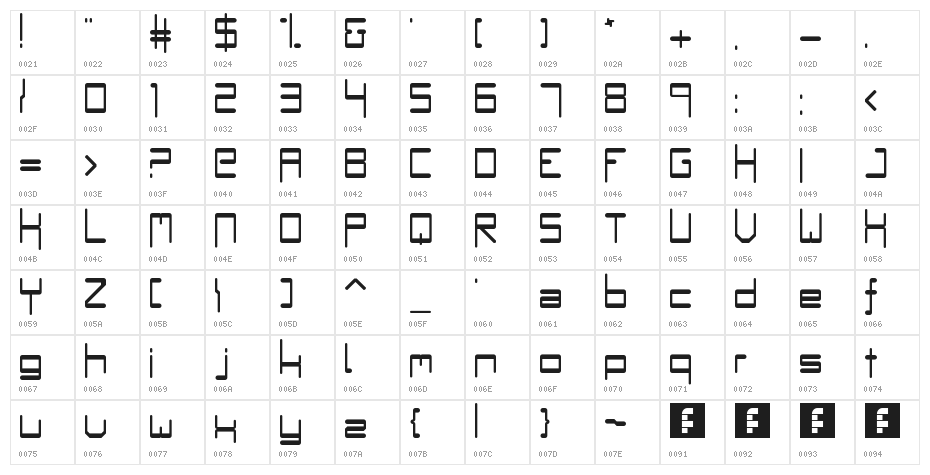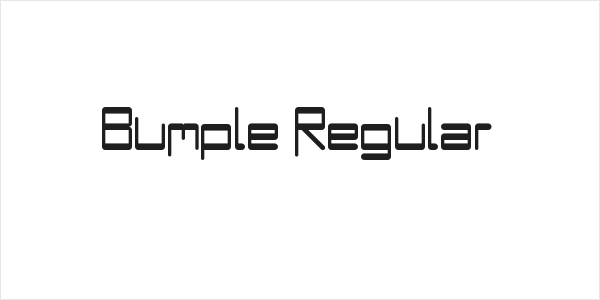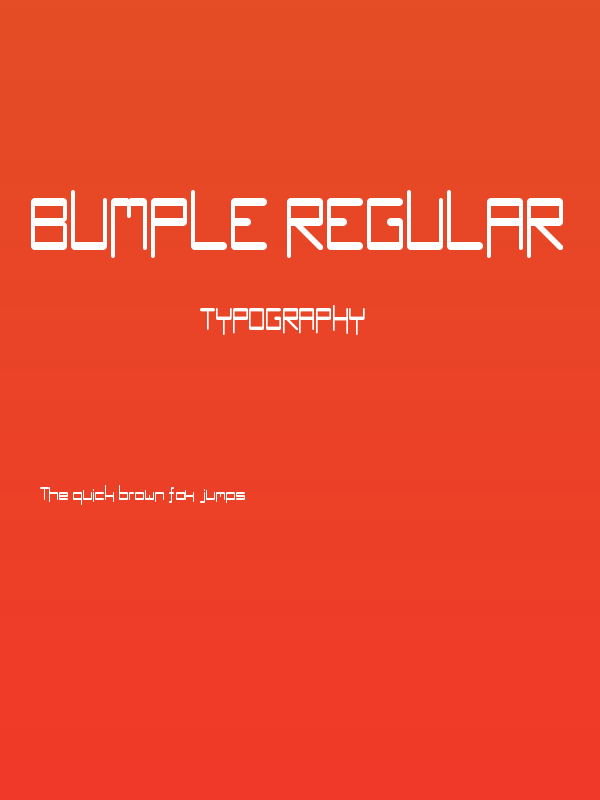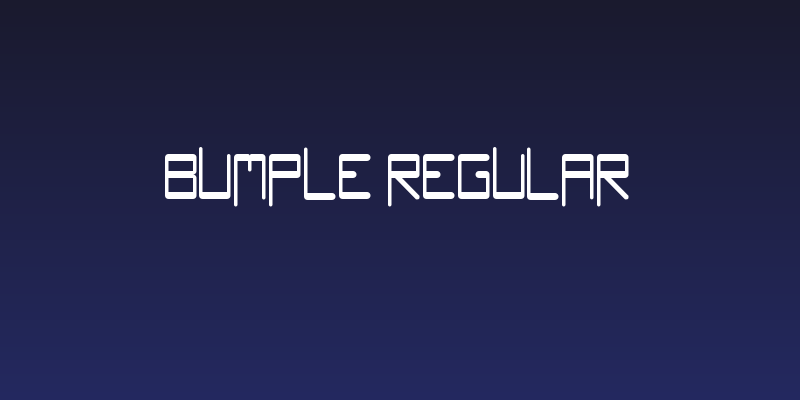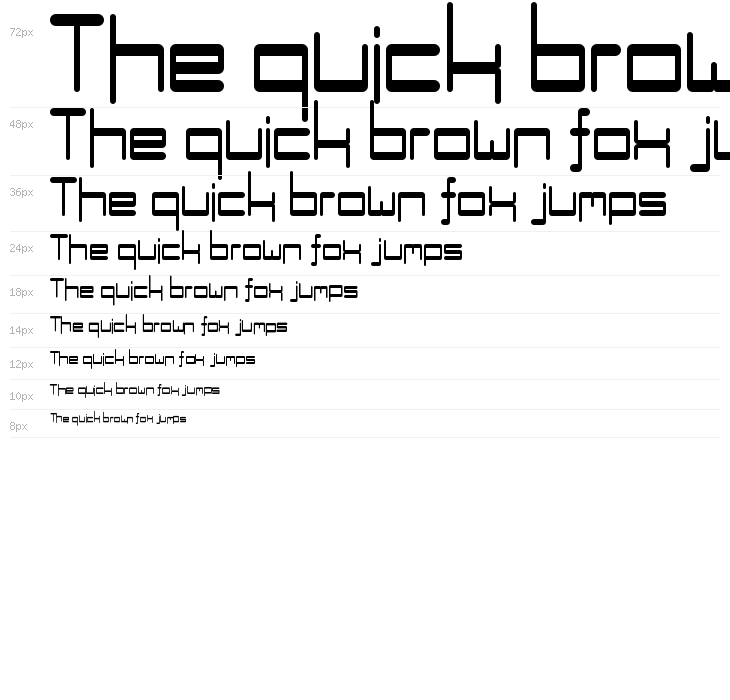
Bumple Regular Font
| Caso d'uso | Logos, Headlines, Digital interfaces |
| Progetti proposti | Ideal for tech branding, modern advertising, digital interfaces, and futuristic-themed designs. |
Bumple Regular